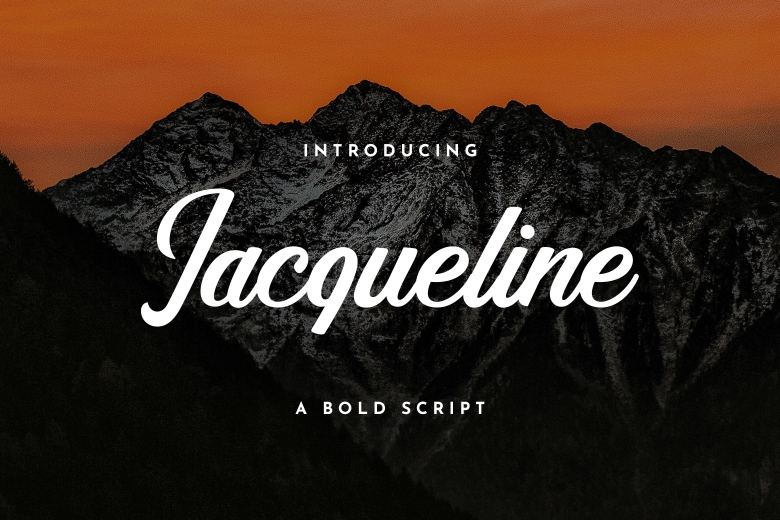
Jaqueline Font
Jaqueline looks like a paint brushed and it is a bold and cursive script font. They can be applied on many applications like logos, wedding invitations, headings, t-shirts, letterhead, signage, labels, news, posters, badges and much more.
Jaqueline Handwritten Script Font